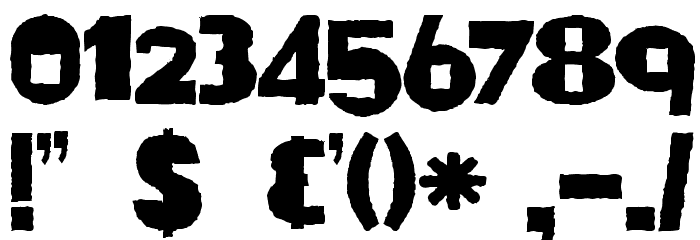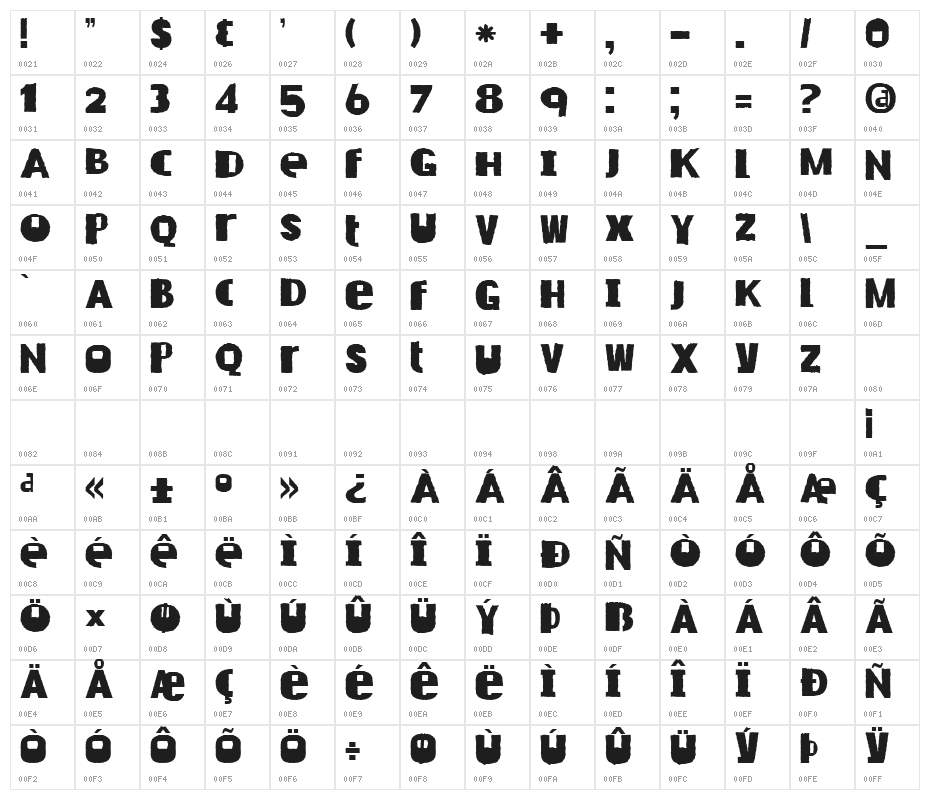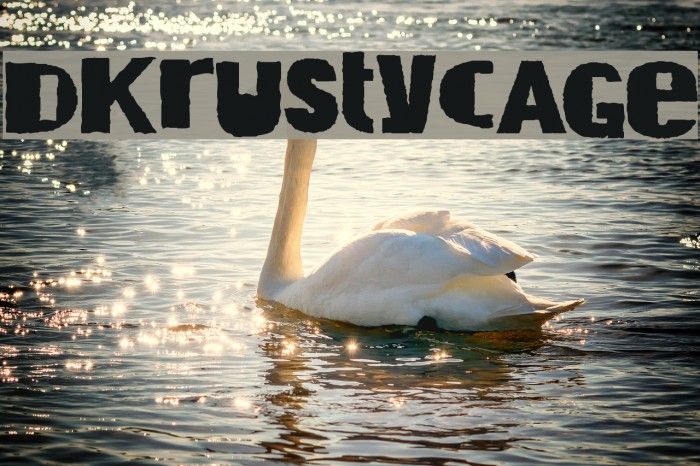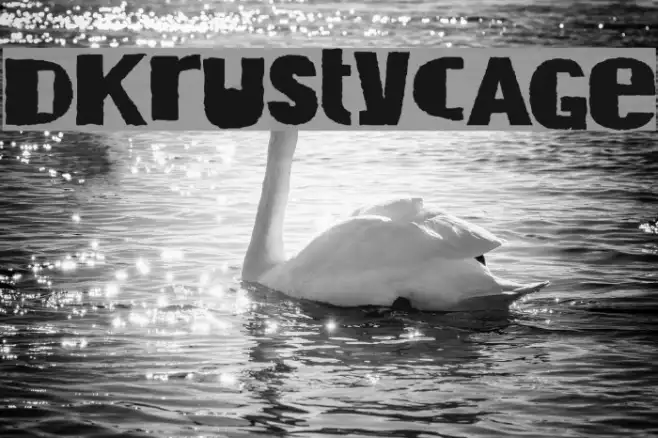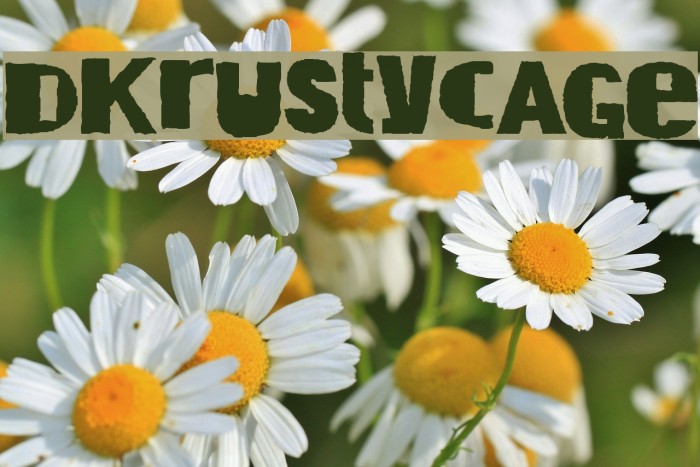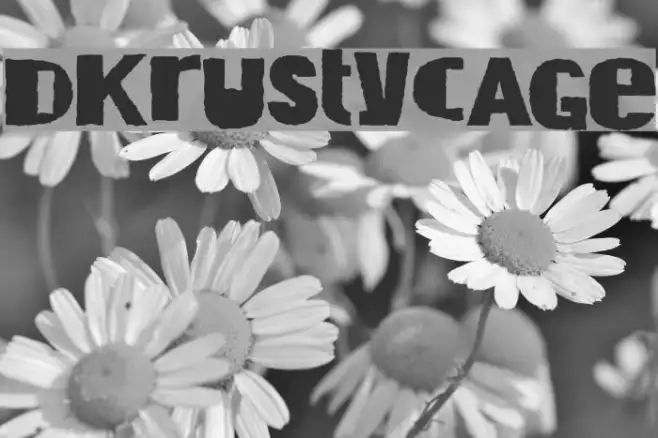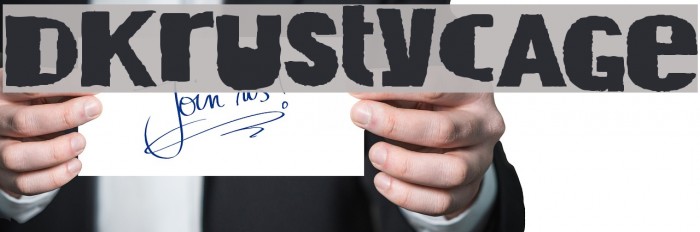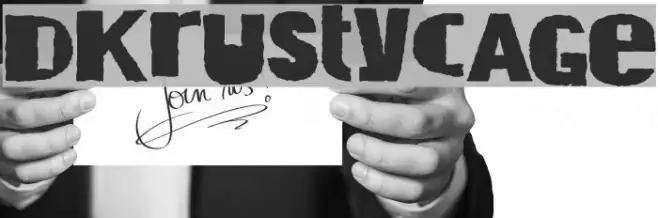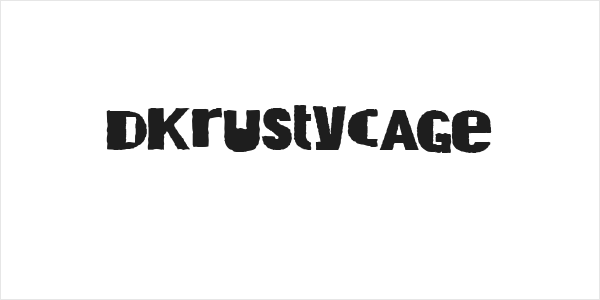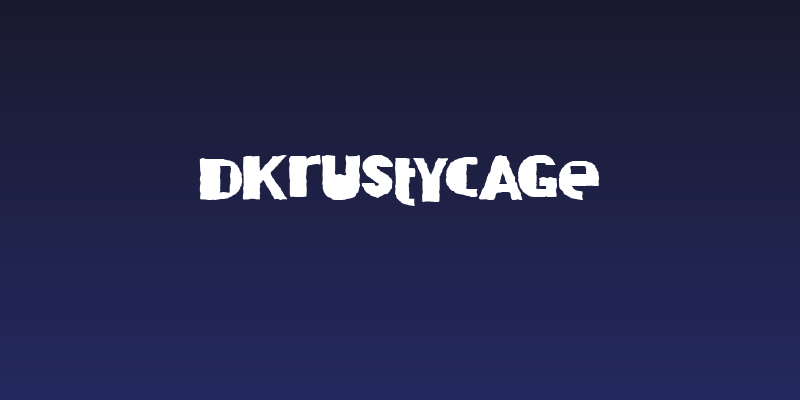
DKRustyCage Font
DKRustyCage Description
This font features a rugged, distressed appearance with uneven edges and a bold, impactful presence. The characters are heavily stylized, giving them a hand-crafted, vintage feel. The uppercase and lowercase letters maintain a consistent weight, contributing to a cohesive look. Numbers and special characters are designed with the same rough texture, enhancing the overall aesthetic. This font is ideal for projects that require a bold statement and a touch of rustic charm.
| Proposed Projects | Perfect for posters, album covers, branding for rustic or vintage-themed products, and any design needing a bold, eye-catching typeface. |